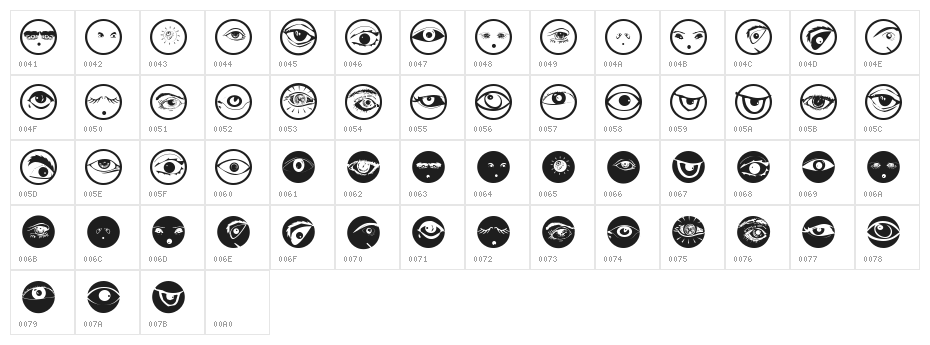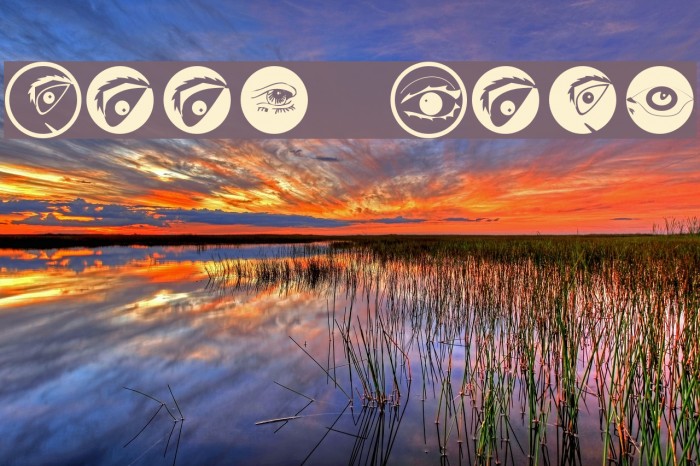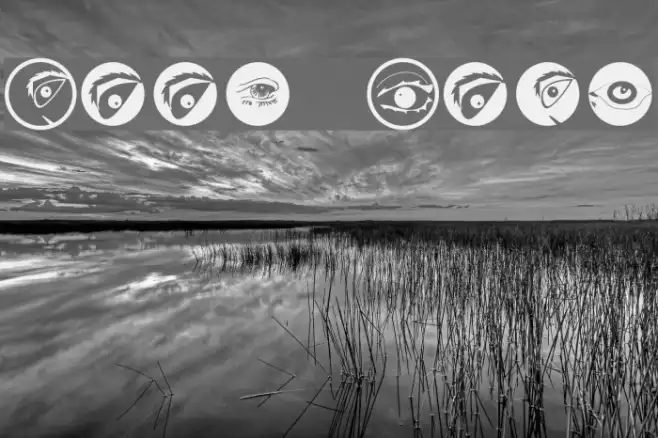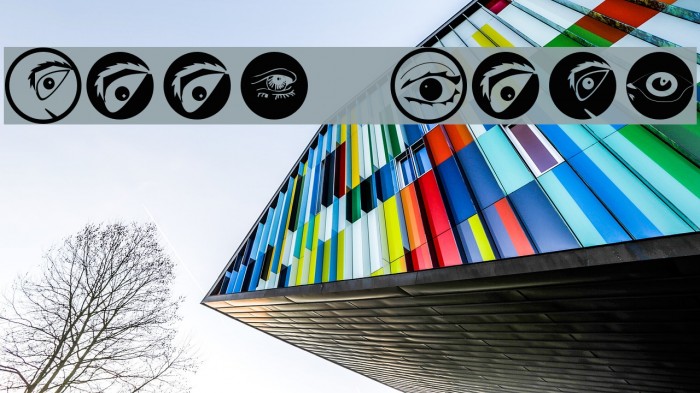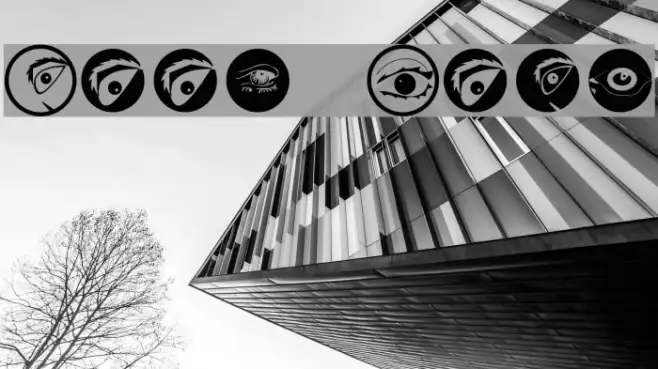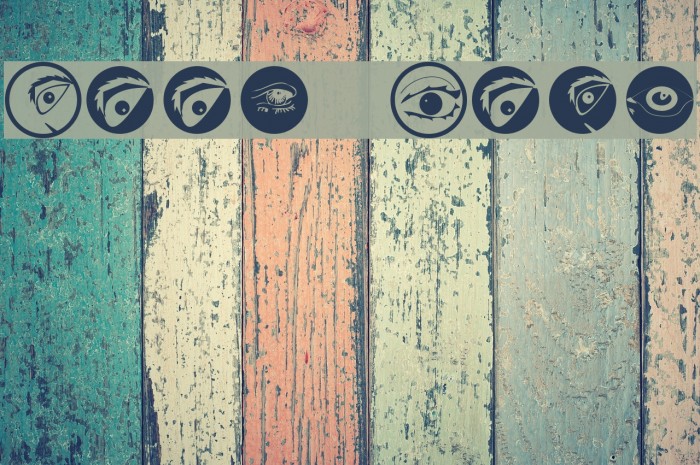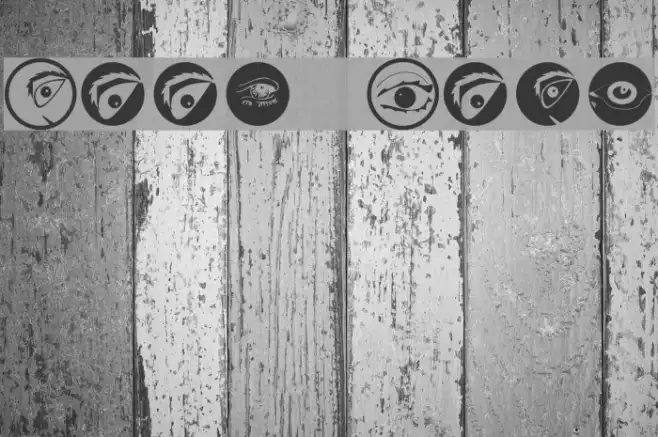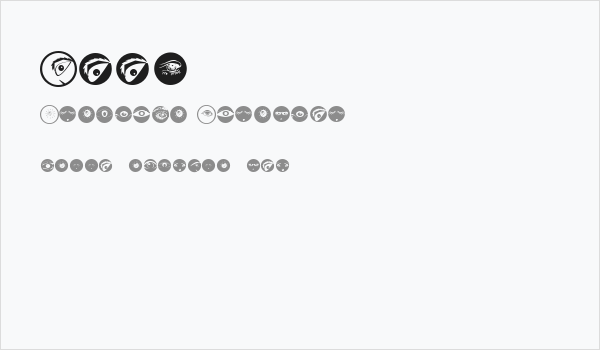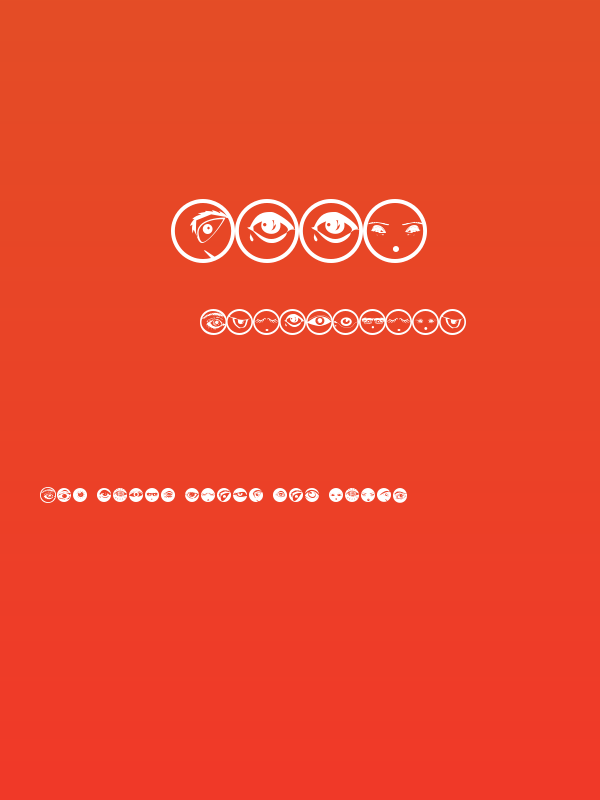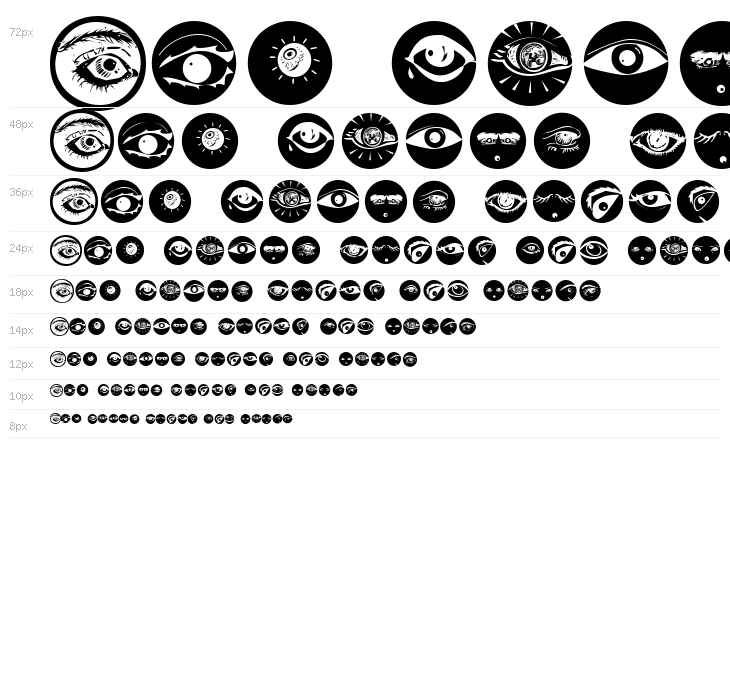
Look Font
Look Description
A decorative display font where each character is represented by a unique eye or face illustration within a circular frame, alternating between black-on-white and white-on-black backgrounds. The glyphs are highly stylized, with varying levels of detail and abstract interpretations of eyes and faces.
| Overall Style | Decorative, Whimsical, Artistic |
| Use Case | Logos, Headlines, Posters, Artistic projects |
| Proposed Projects | Posters, album covers, branding for creative industries, art installations, editorial headlines, and event invitations. |